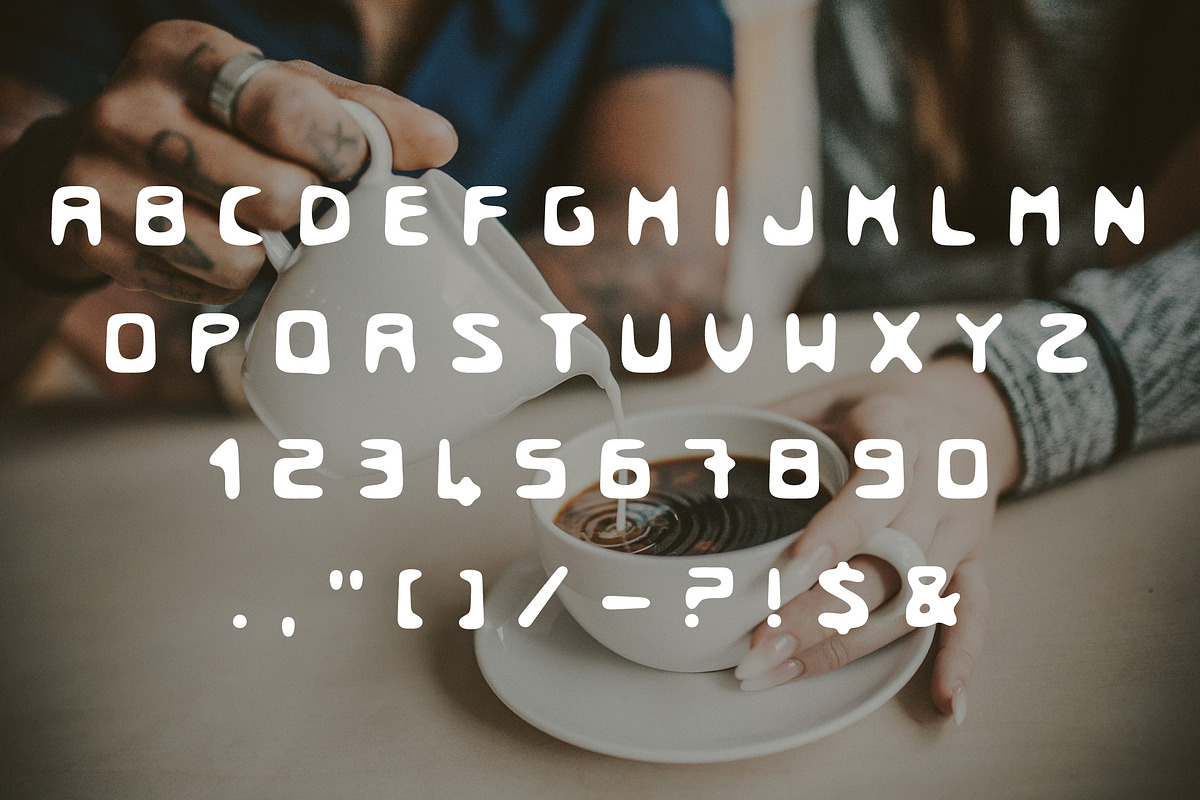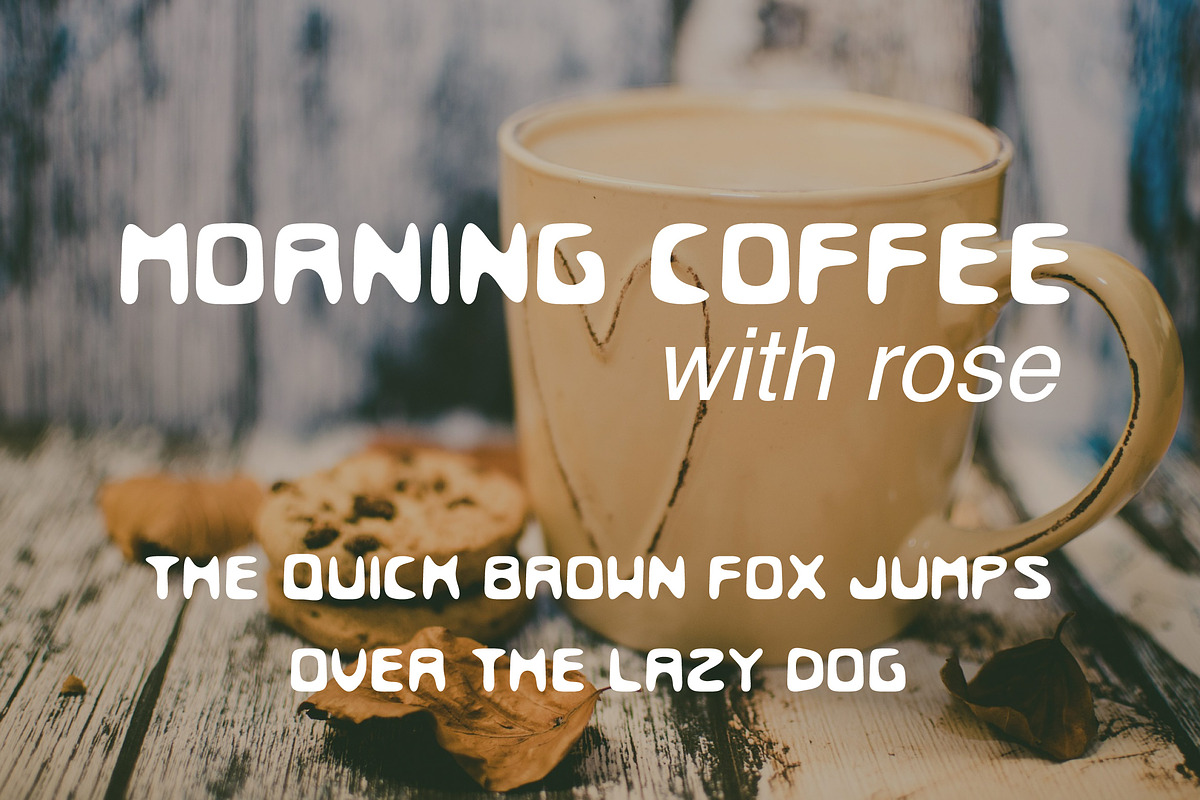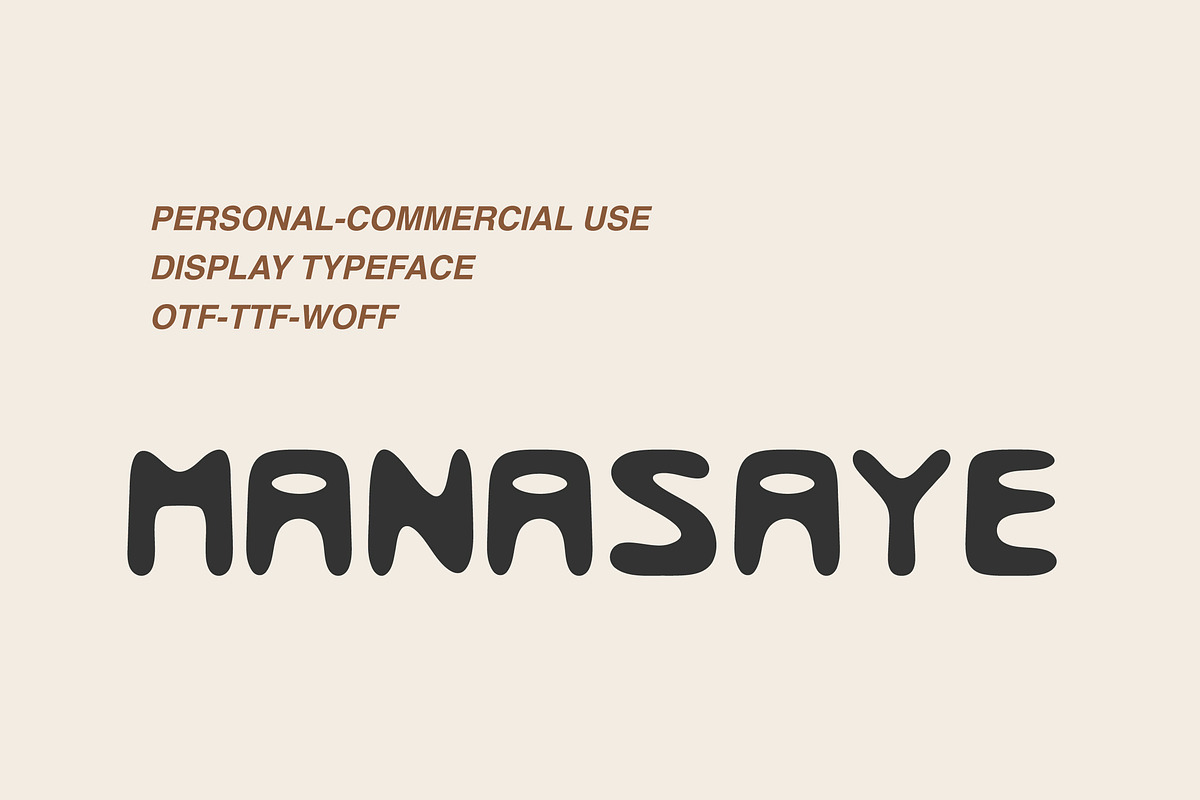
Manasaye
Manasaye is a stylish and expressive handwritten font that captures the beauty of natural handwriting. With its smooth strokes and organic flow, it's perfect for branding, invitations, quotes, packaging, social media, and creative projects. Add a personal and artistic touch to your designs with Manasaye!